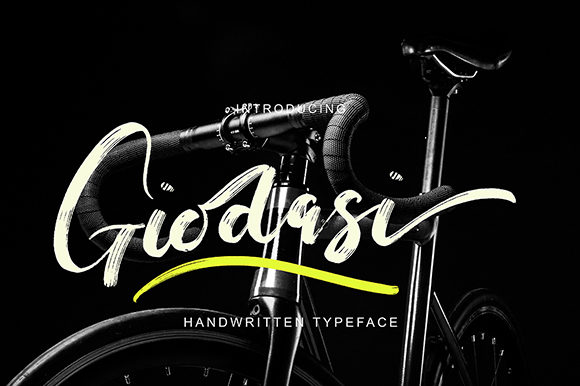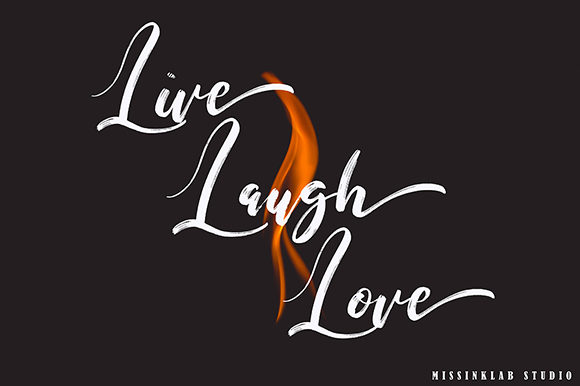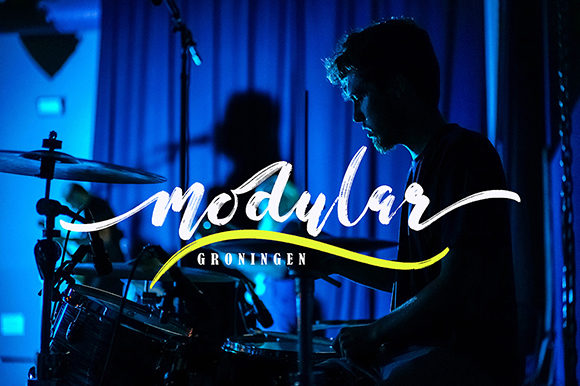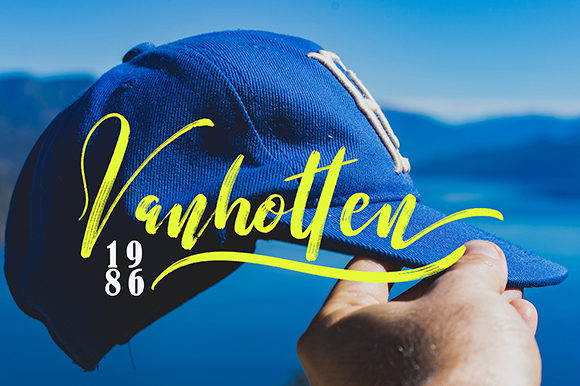
HomeScript FontsGiodasi Font Script Fonts Giodasi Font FacebookXPinterestWhatsApp Giodasi Font Poster 2 Giodasi Font Poster 3 Giodasi Font Poster 4 About Giodasi Font Giodasi is a modern handwritten font with a bold and urban twist. It will turn any design idea into a stand out! DOWNLOAD ON CREATIVE FABRICAThis font is sold and delivered by Creative Fabrica. Font Canyon may earn a commission if you buy through this link. People also explored Education Background Font Zeuty Font Transtor Font Viony Font Xabiya Font Bhaillia Font Hanberra Font Modecque Font Simple Shapes Font 449 0 TagsGiodasi Font Previous articleFioletta Smith FontNext articleHalimatun Font LEAVE A REPLY Cancel reply Comment: Please enter your comment! Name:* Please enter your name here Email:* You have entered an incorrect email address! Please enter your email address here Website: Save my name, email, and website in this browser for the next time I comment. Personal Use Free Cokobi Personal Use Free Read more about this font Angista Script Personal Use Free Read more about this font Squariess Personal Use Free Read more about this font Braindly Personal Use Free Read more about this font BLOG The 10 Best Handwriting Fonts to Add Personality to Your Designs 10 of the Best Handwriting Fonts for Adding Personality to Your Designs There will undoubtedly be no other better choice than handwriting fonts to give... To increase your work productivity, choose the most readable fonts. Using Fonts in Digital Marketing: Tips to Strengthen Your Brand Identity How to Cut Any Font on Cricut: Convert a Font to SVG (Free)